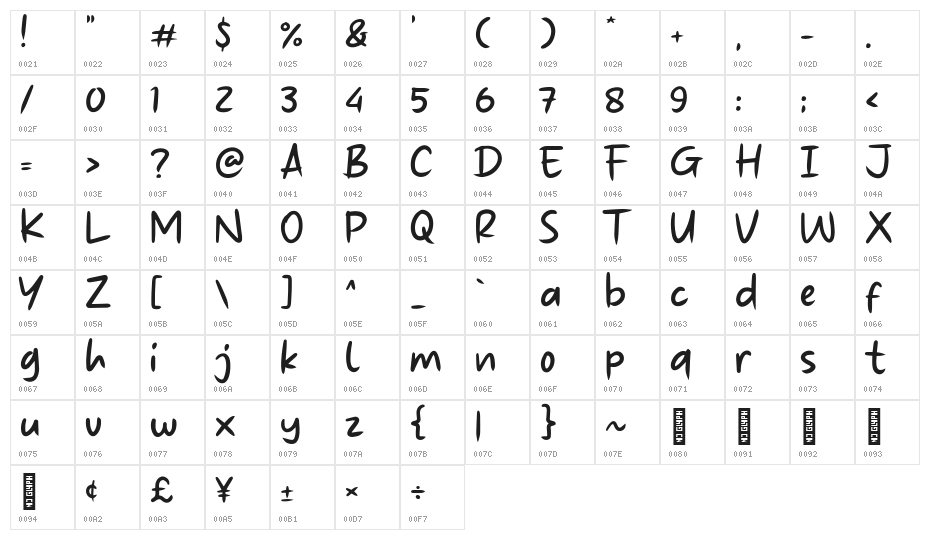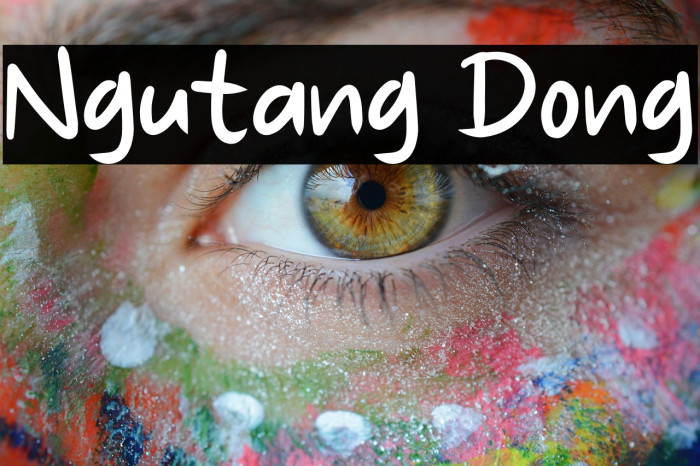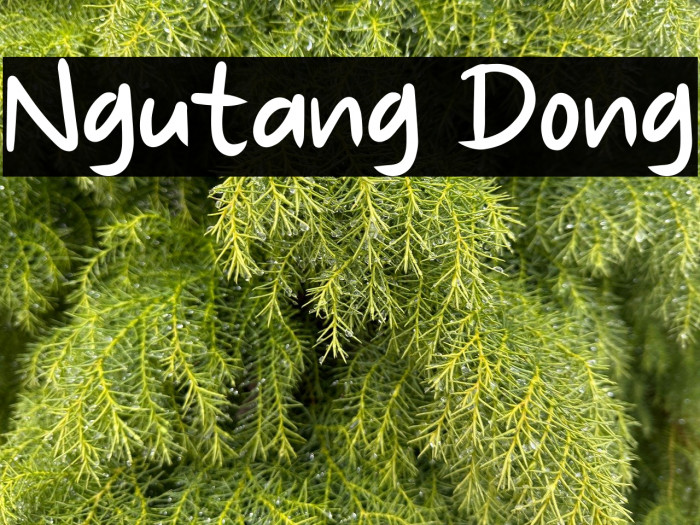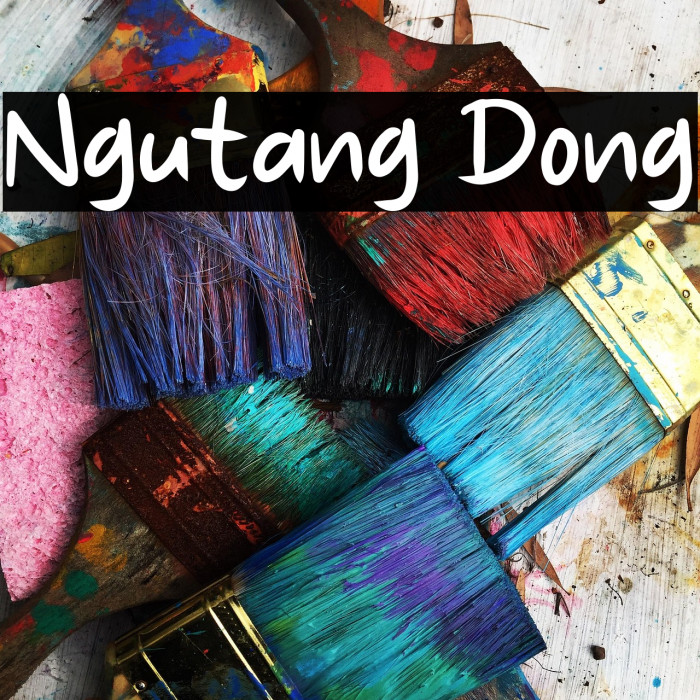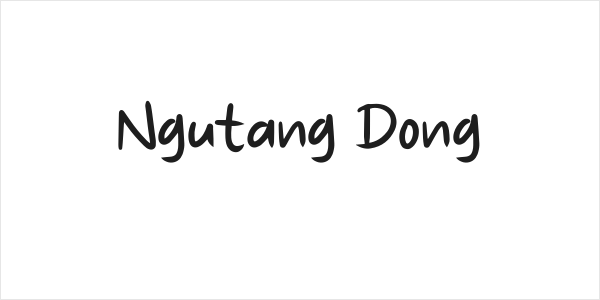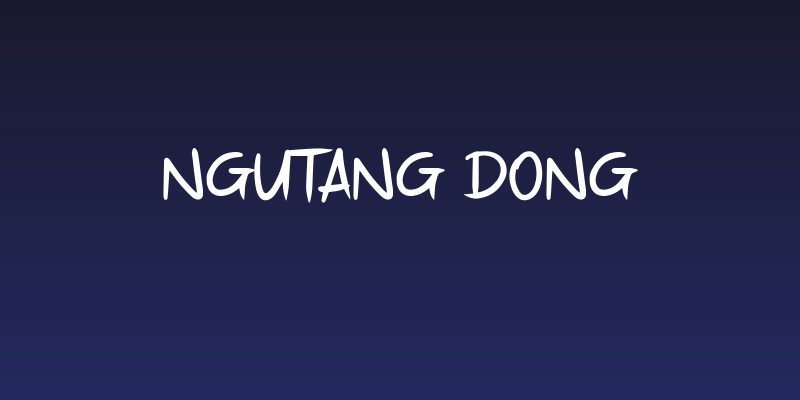
Ngutang Dong Font
Ngutang Dong Description
This font features a playful and informal handwritten style, characterized by its smooth, rounded strokes and slightly irregular letterforms. The uppercase letters are bold and prominent, while the lowercase letters maintain a consistent flow with a casual appearance. Numbers are clear and easy to read, matching the overall aesthetic of the font. Special characters are integrated seamlessly, adding to the font's versatility. The design conveys a sense of friendliness and approachability, making it suitable for creative and informal projects.
| Use Case | Logos, Headlines, Informal Text |
| Proposed Projects | Ideal for greeting cards, children's books, casual branding, and social media graphics. |